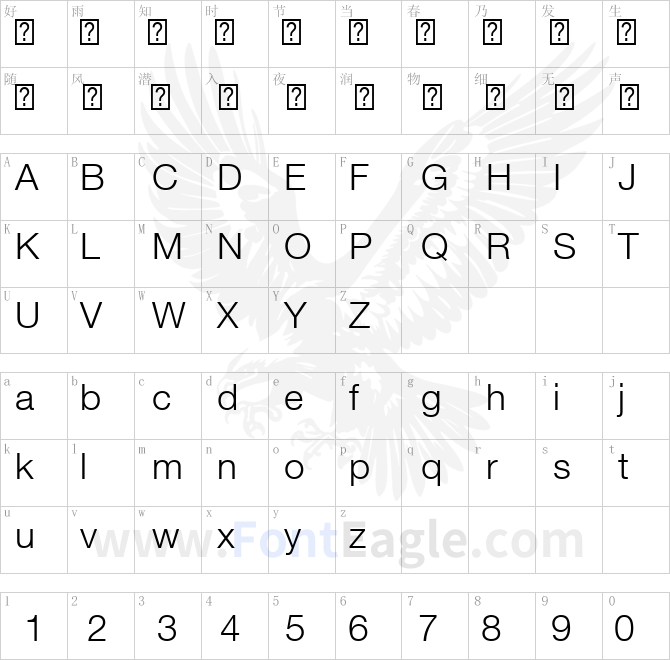
- Font name:HelveticaNeueLT Com 45 Lt
- Font Subfamily ID:Linotype GmbH:Helvetica Neue LT Com 45 Light:2006
- Font Full Name:Helvetica Neue LT Com 45 Light
- Font Version:Version 2.01;2006
- Postscript:HelveticaNeueLTCom-Lt